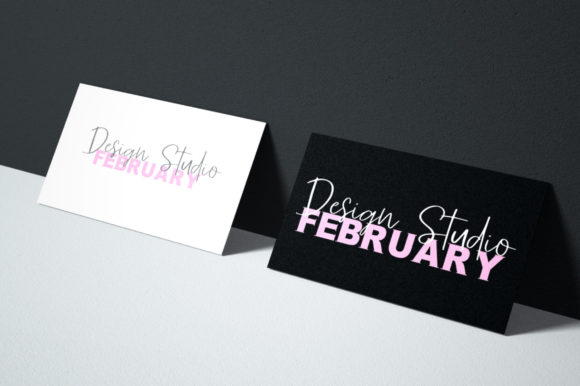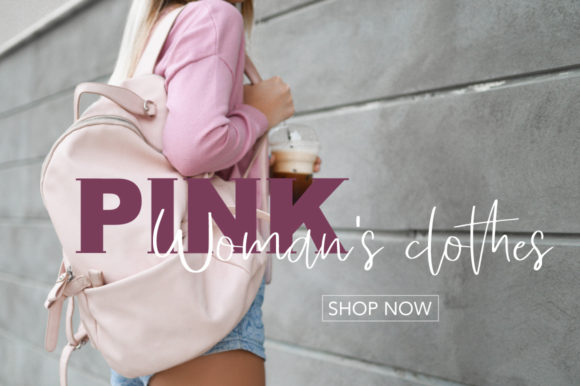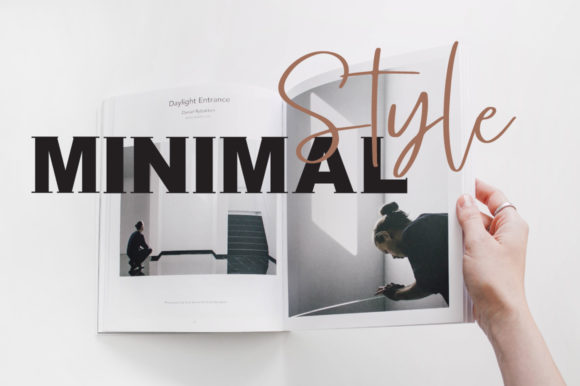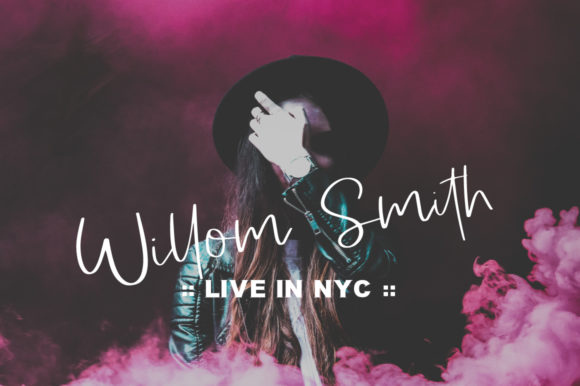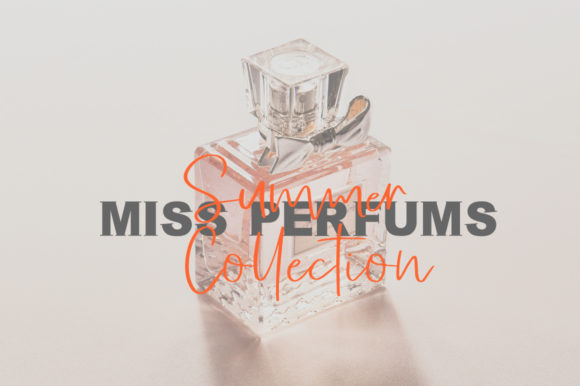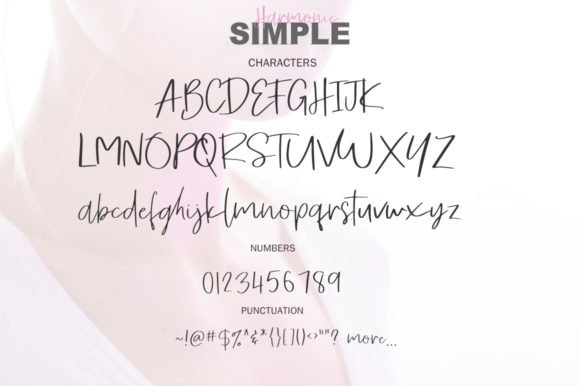
Simple Harmonic Duo Font – Free Download
Introduction to Simple Harmonic Duo Font
The Simple Harmonic is a beautiful script duo.
It comes with an elegant script, and striking sans serif font It’s perfect for making your set of invitations, branding, blog posts, and much more.
Key Features of Simple Harmonic Duo Font
Why Choose Simple Harmonic Duo Font?